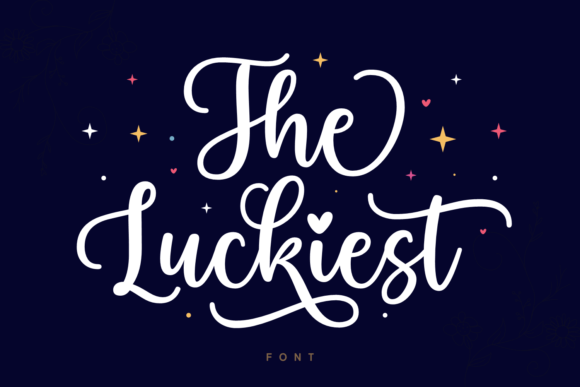
Journey into the realm of festive cheer with The Luckiest Font, a captivating script font meticulously crafted to ignite the spirit of Christmas. Feel the warmth of the season as this font dances across your designs, bringing an enchanting touch to every creation.
Immerse yourself in the intricate details and elegant curves of The Luckiest Font. Each letter is a stroke of brilliance, a testament to the artistry of its creator, Situjuh. Whether you're designing Christmas cards, gift tags, or festive invitations, this font will elevate your creations to new heights.
The Luckiest Font possesses an undeniable allure, a charm that captivates the senses. Its graceful lines and whimsical flourishes evoke a sense of nostalgia, reminding us of the magic and wonder of the Christmas season. With its innate ability to evoke emotions, this font will add a touch of heartfelt warmth to your designs.
Embrace the versatility of The Luckiest Font. Its adaptability knows no bounds, making it the perfect choice for a wide range of projects. From Christmas posters and flyers to social media graphics and website designs, this font will seamlesslyèž�入任何美å¦ã€‚
With The Luckiest Font, the possibilities are endless. Let your creativity soar as you craft designs that capture the essence of Christmas. Its PUA encoding ensures effortless access to a world of glyphs and ligatures, empowering you to unleash your imagination and create truly unique and captivating designs.